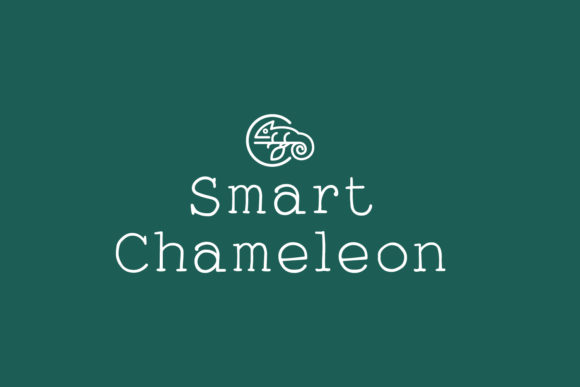
Journey into the Realm of Typographic Finesse with Smart Chameleon: Where Serif Meets Art
Unleash the transformative power of Smart Chameleon, a serif font family that embodies sophistication, versatility, and an allure that dances between classicism and modernity. Like a masterfully cut gemstone, each letterform sparkles with elegance, reflecting the precision and artistry of Cititype's design genius.
With Smart Chameleon, your creative endeavors take on a new dimension, effortlessly adding a touch of understated luxury to your projects. Its graceful curves and confident serifs lend an air of distinction, whether you're crafting stunning letterheads, eye-catching titles, or personalized stationery that leaves a lasting impression.
Designed with Cutting-Edge Precision:
Smart Chameleon's brilliance lies in its perfect harmony with cutting machines, making it the font of choice for crafters seeking perfection. Its clean lines and crisp edges ensure effortless and precise cutting, transforming your designs into tangible masterpieces.
A Symphony of Versatility:
From the delicate grace of wedding invitations to the bold presence of business cards, Smart Chameleon adapts seamlessly to your creative vision. Its versatility is a testament to its timeless appeal, making it the font you'll reach for again and again.
Craft Your Legacy with Smart Chameleon:
Elevate your creative pursuits to new heights with Smart Chameleon. Its timeless beauty and effortless elegance will leave an enduring impression on your audience, ensuring that your designs transcend the ordinary and become truly extraordinary.
Let Smart Chameleon be your font of choice, and witness the transformation of your creative endeavors into works of art. Embrace the power of typography and leave your mark on the world, one letter at a time.